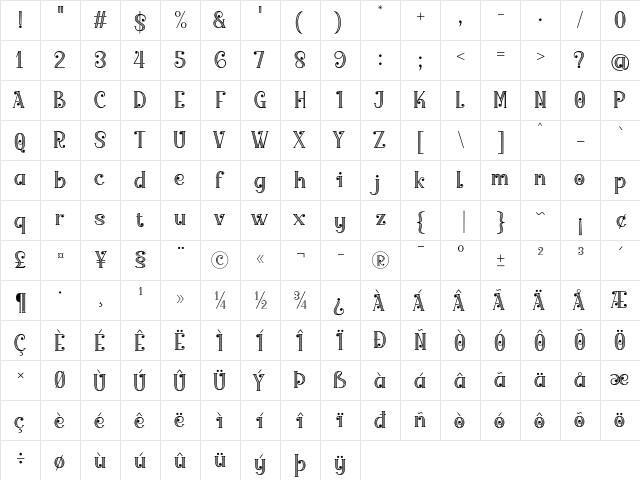
Merrycle Carved Regular
| Foundry | 7NTypes |
| Designer | Jasman Nazara; Situjuh Nazara |
Design Context for Merrycle Carved Typeface
Merrycle Carved is a composed and adaptable typeface that performs quietly and consistently across a wide range of design contexts.